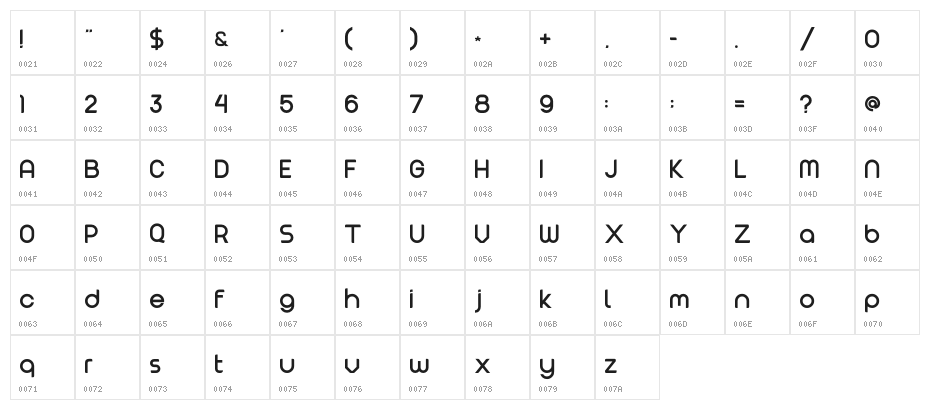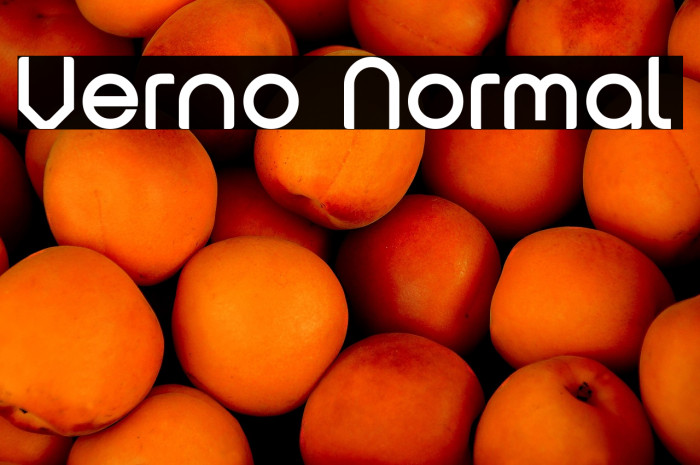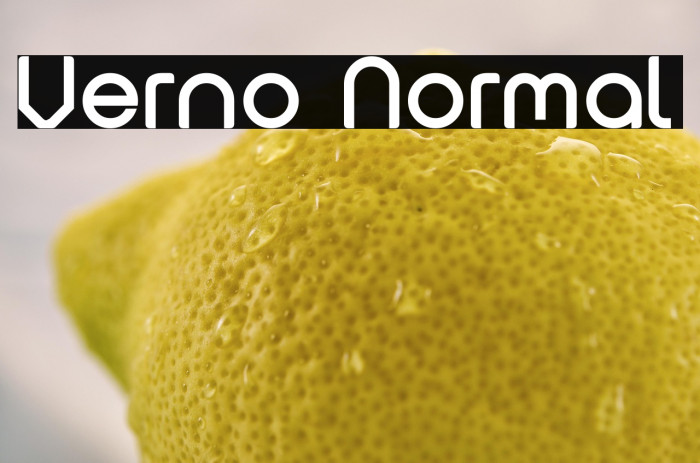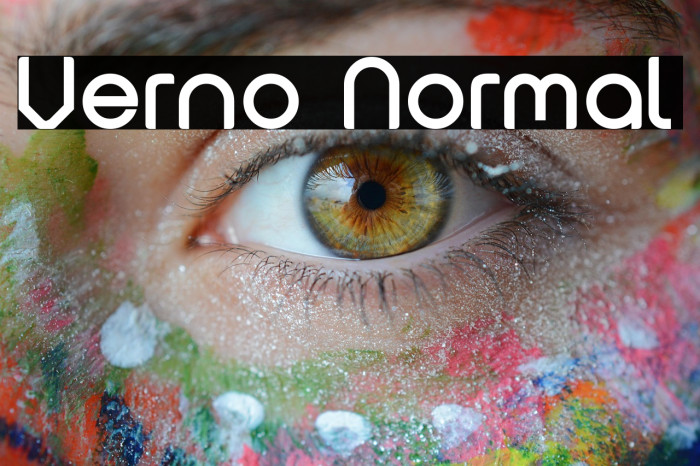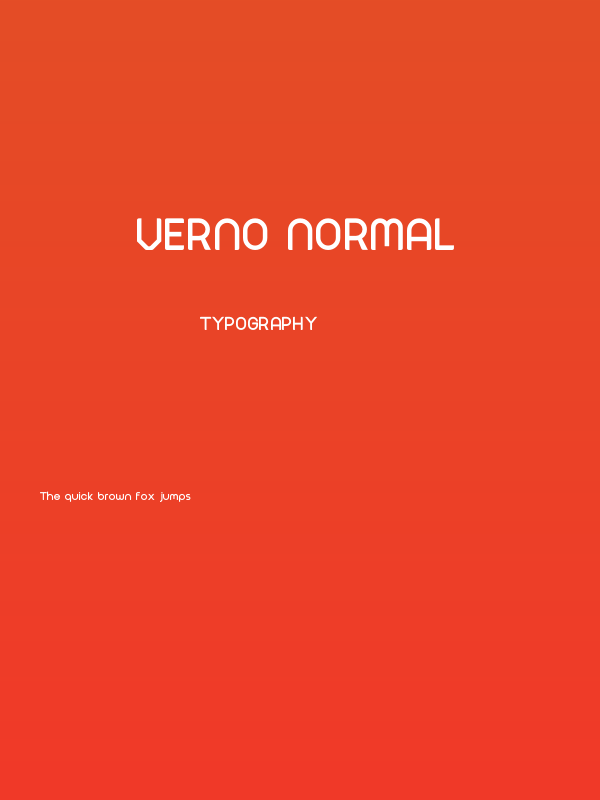
Verno Normal Font
Verno Normal Description
This font exhibits a modern and clean sans-serif style with rounded edges, giving it a friendly and approachable appearance. The uniform stroke width across all characters contributes to a balanced and harmonious look. The uppercase letters are bold and prominent, while the lowercase letters maintain a consistent height, enhancing readability. The numerals are clear and distinct, making them suitable for various applications. Special characters are well-defined, ensuring versatility in design projects. Overall, this font combines simplicity with a touch of elegance, making it ideal for contemporary design needs.